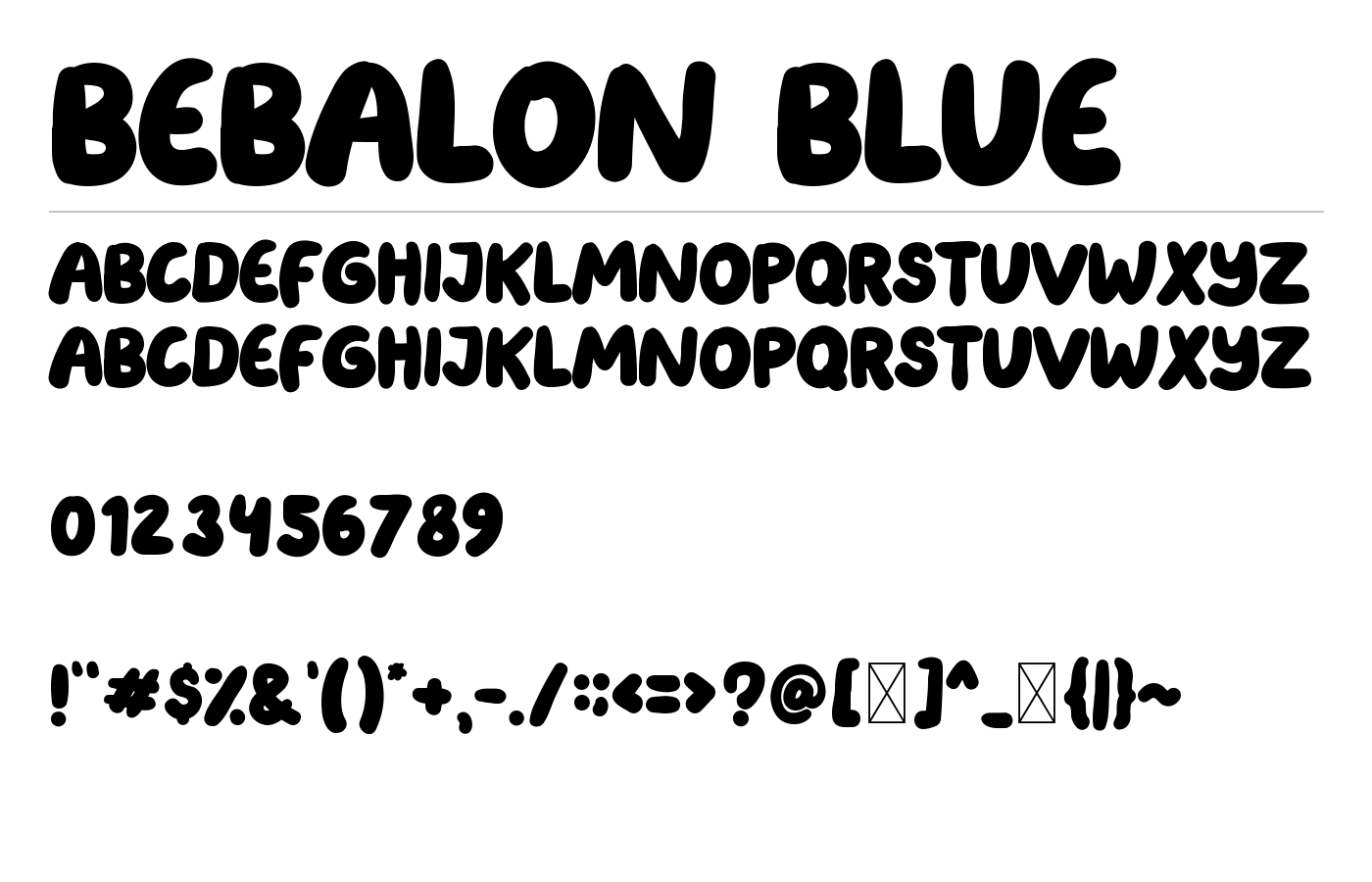
Bebalon Blue is a bold, playful sans serif font with a rounded, chunky style that feels friendly and approachable. Its thick, uniform strokes and slightly irregular shapes give it a hand-drawn, casual vibe, making it ideal for fun, informal designs like children's books, casual branding, or eye-catching headlines. This font works best where a lively, energetic tone is needed, adding warmth and personality to any project.
Bebalon Blue Font
About Bebalon Blue Font
| Font family | Bebalon Blue Font |
| Designer | Fikry Alfatih |